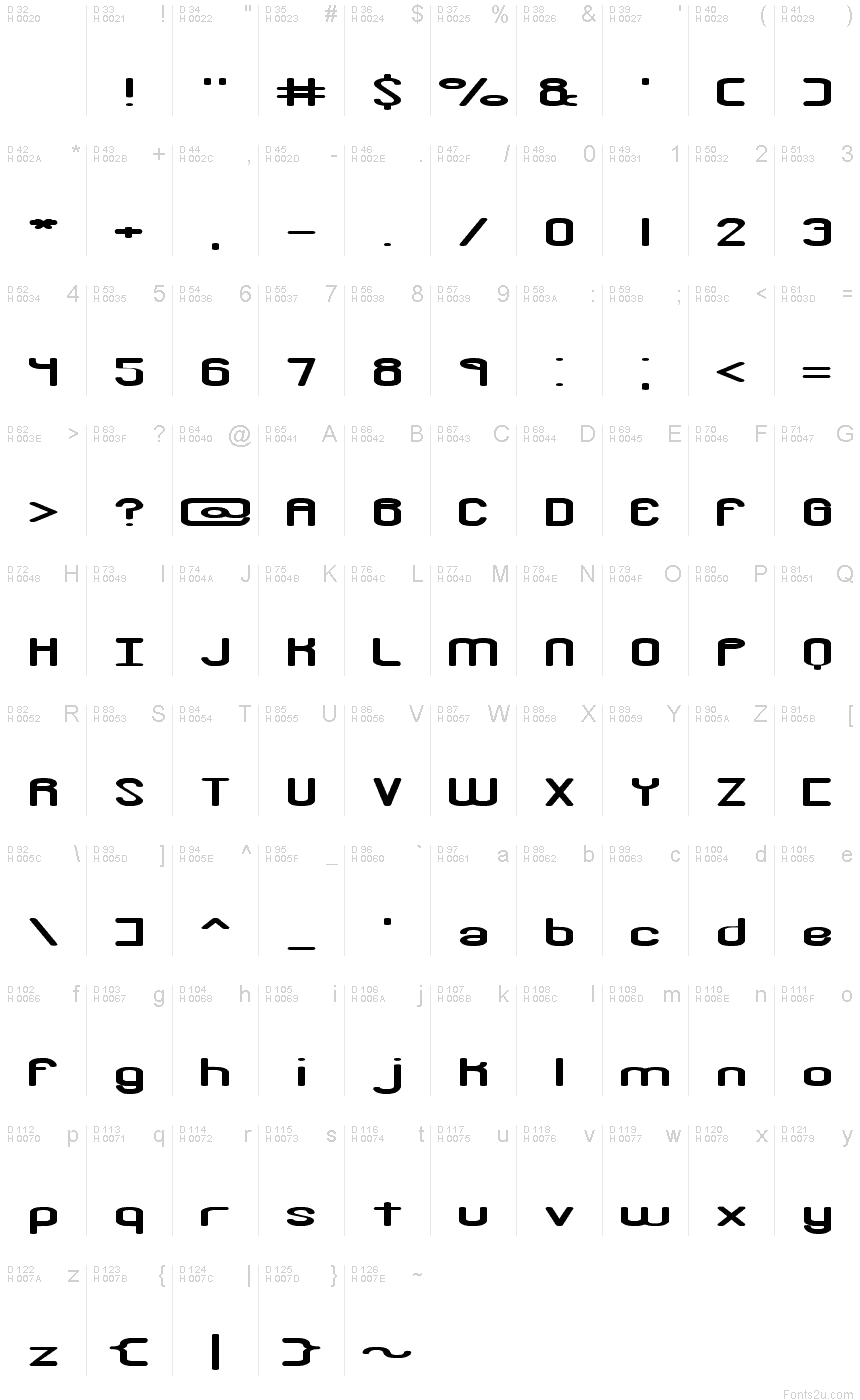
Crackdown R -BRK-
Crackdown R font by ÆNIGMA FONTS is a free modern sci‑fi sans typeface with a smooth, modular feel. Wide, pill-shaped counters and consistently thick strokes give it a glossy, futuristic look-like lettering etched into a sleek control panel. The Crackdown family has a steady, mechanical rhythm that still feels surprisingly friendly thanks to those rounded corners and soft curves.
This free font shines on gaming titles, sci‑fi posters, tech event flyers, electronic music covers, esports branding, and bold app splash screens. Using Crackdown R at larger sizes lets its chunky geometry really lock in, while you can pair it with a simple geometric sans for body copy to keep layouts clean and readable.